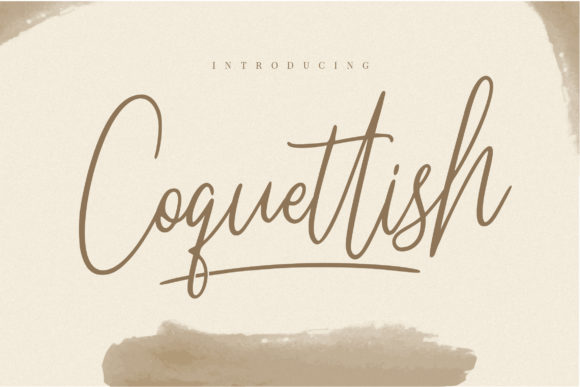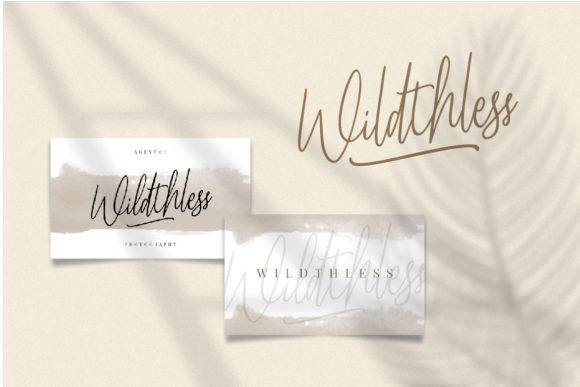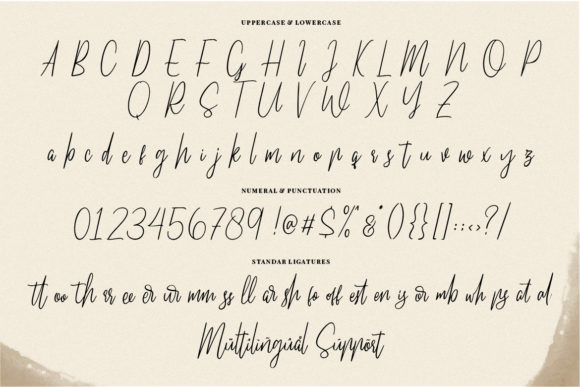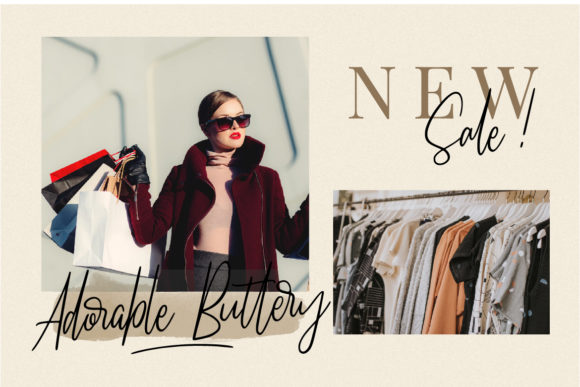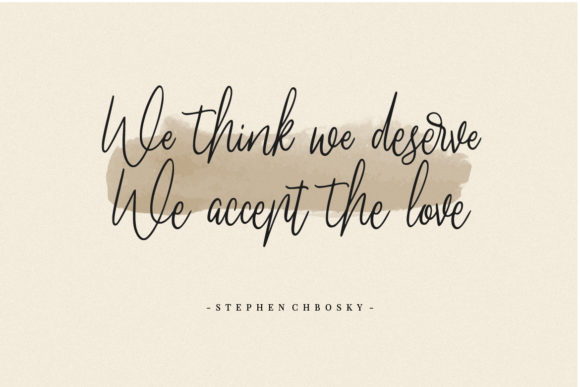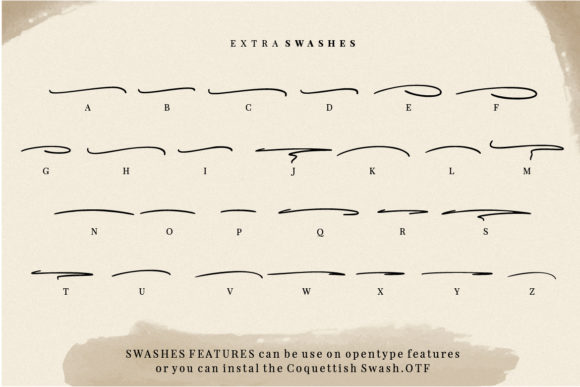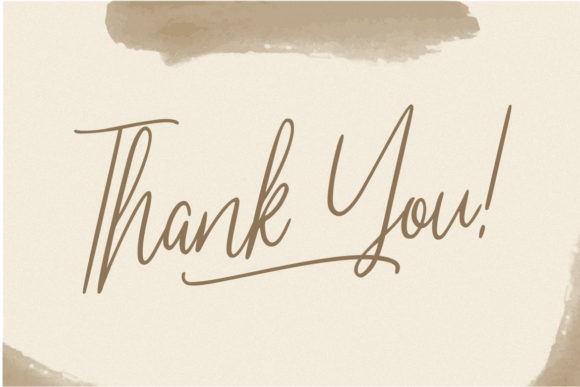
Coquettish Font
About Coquettish Font
“Coquettish” is a font that embodies simplicity and elegance in its handwriting style. It offers a touch of sophistication that makes it an excellent choice for a range of projects, from wedding invitations and greeting cards to posters, postcards, photography, branding, and editorial designs.
The beauty of “Coquettish” lies in its understated charm. Its clean and fluid lines capture the essence of handwritten elegance, adding a personal and intimate touch to your creations. Whether you’re aiming for a romantic wedding invitation or a captivating poster, this font adapts effortlessly to your design needs.
Imagine “Coquettish” gracing a wedding invitation, setting the tone for a special day with its refined yet approachable style. Envision it adorning a greeting card, conveying heartfelt messages with its graceful strokes. Picture it on a poster or postcard, capturing attention and leaving a lasting impression on viewers.
The versatility of “Coquettish” extends to various design contexts. Its elegant handwriting lends itself well to photography branding, adding a touch of authenticity and warmth to your visual identity. In editorial designs, it can convey stories and narratives with a personal and relatable touch, enhancing the overall reading experience.
Whether you’re a seasoned designer or someone venturing into the world of creativity, “Coquettish” invites you to explore its potential. Embrace its simplicity and elegance as you craft designs that resonate with your audience. Let it be the bridge between your creative vision and the hearts of those who encounter your work. As you incorporate “Coquettish” into your projects, you’ll find it to be a versatile tool that elevates your designs and adds a touch of timeless charm.